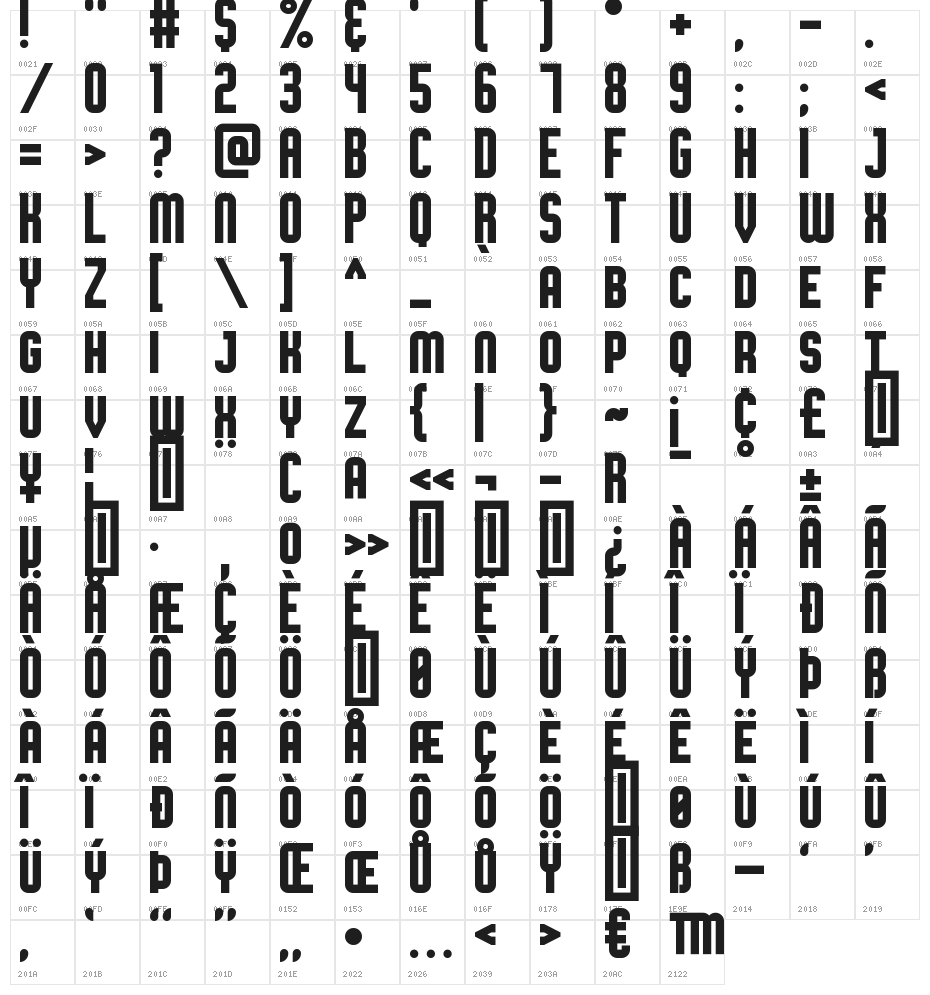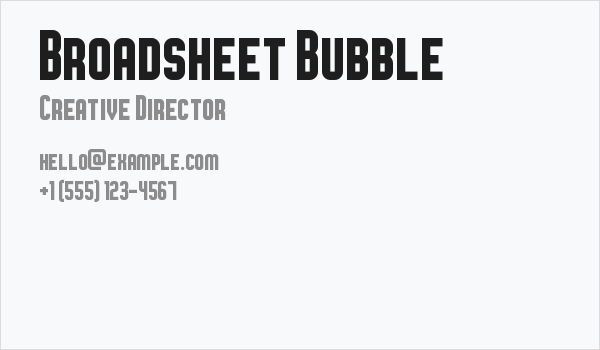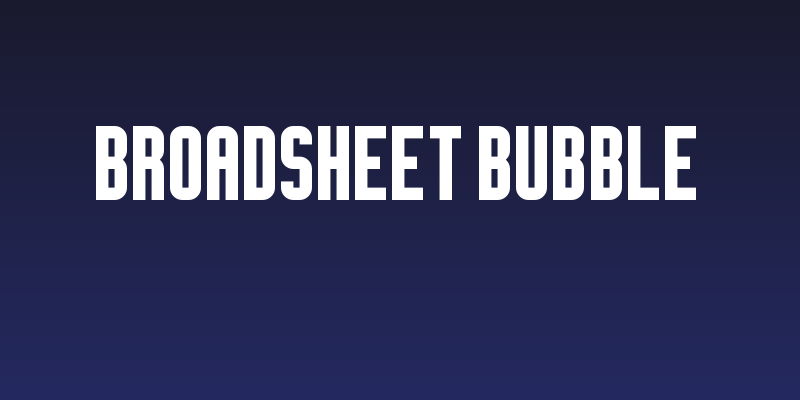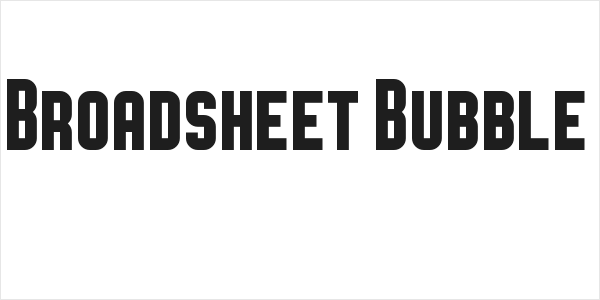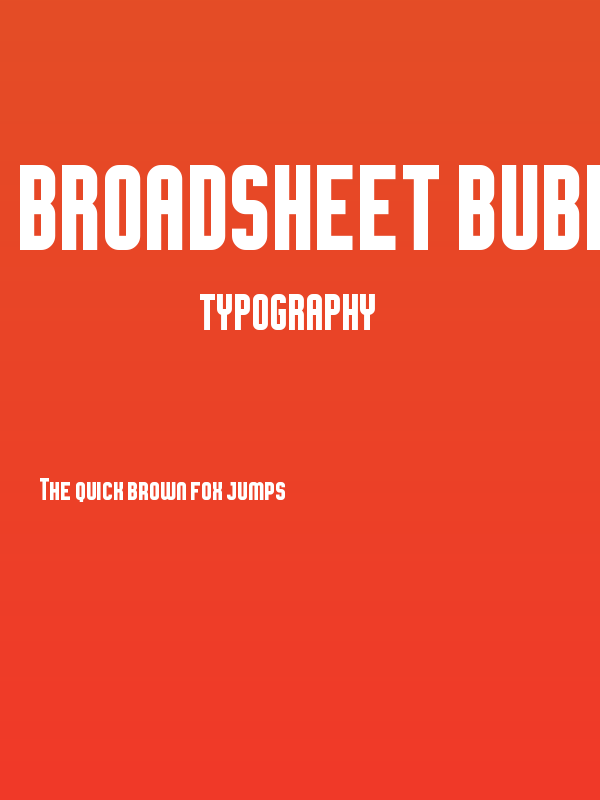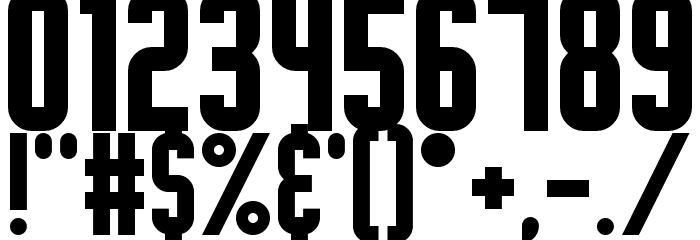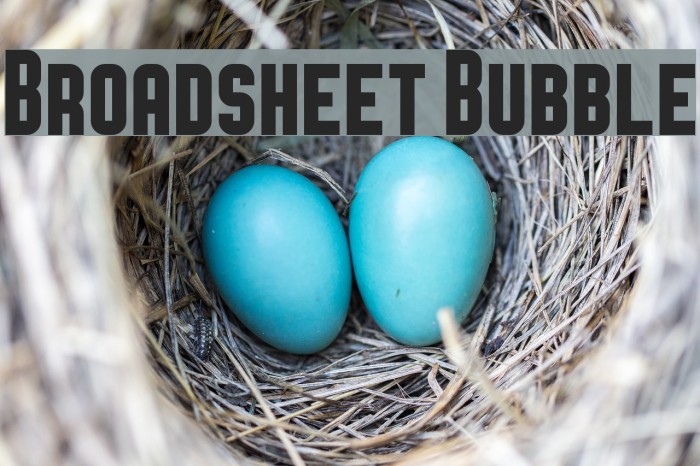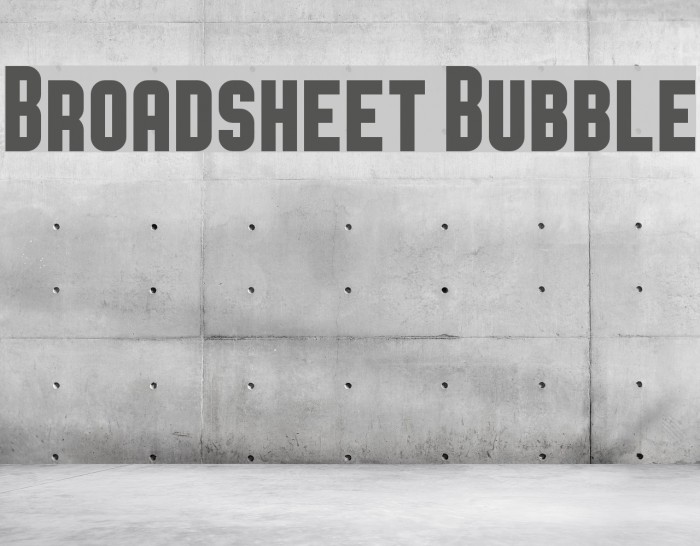
Broadsheet Bubble Font
Broadsheet Bubble Description
This font features a bold and impactful design with a strong presence. The characters are uniformly thick, giving it a robust and solid appearance. The uppercase letters are tall and commanding, while the lowercase letters maintain a consistent height, ensuring readability. The numbers are equally bold, making them stand out clearly. Special characters are designed to match the overall boldness, providing a cohesive look across all elements. The font's geometric structure and uniform stroke width contribute to its modern and assertive style, making it suitable for attention-grabbing headlines and impactful designs.
| Proposed Projects | Ideal for headlines, posters, branding, and any design requiring a bold statement. |